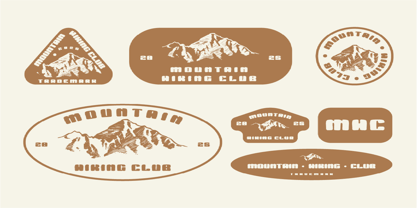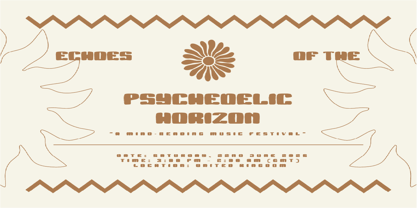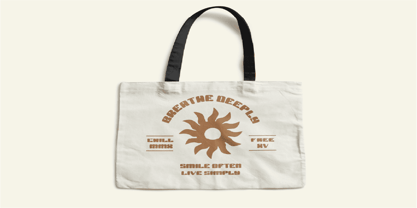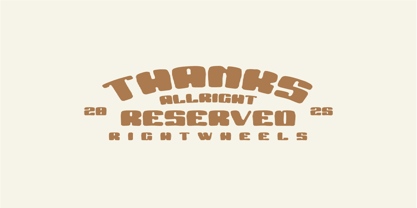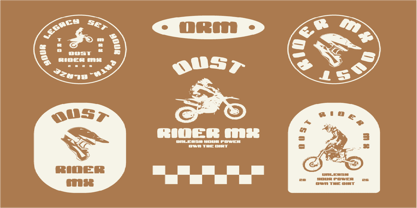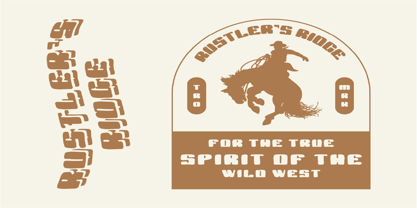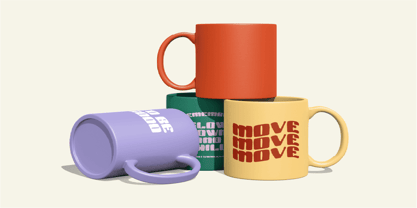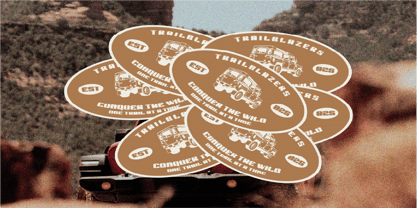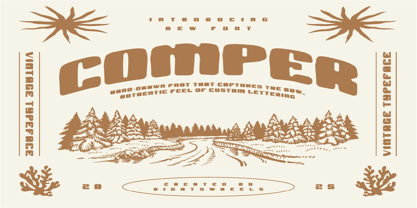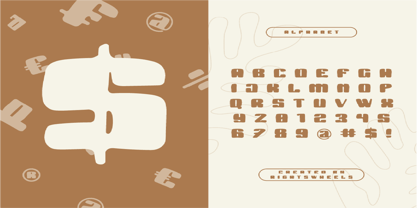
Comper
by Rightwheels
Comper is a hand-drawn font that captures the raw, authentic feel of custom lettering. Its playful, imperfect strokes bring a personal touch to any design, making it ideal for projects that demand an organic, handcrafted vibe. Whether you're designing for a rustic brand, a casual event, or an artisanal product, COMPER adds a unique charm with its fluid lines and inviting style. Perfect for logos, signage, posters, and more, this font embraces the beauty of imperfection and creative expression.